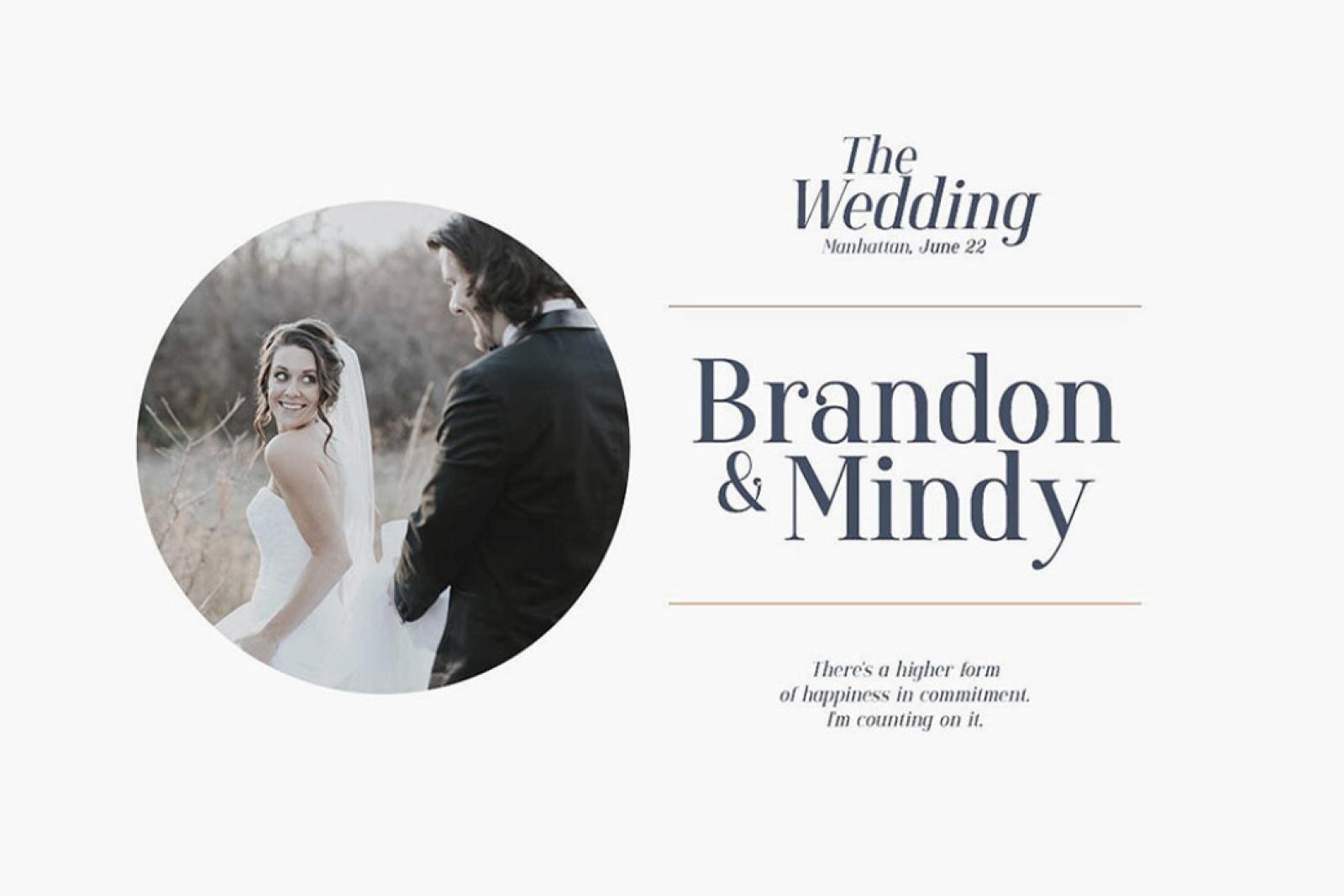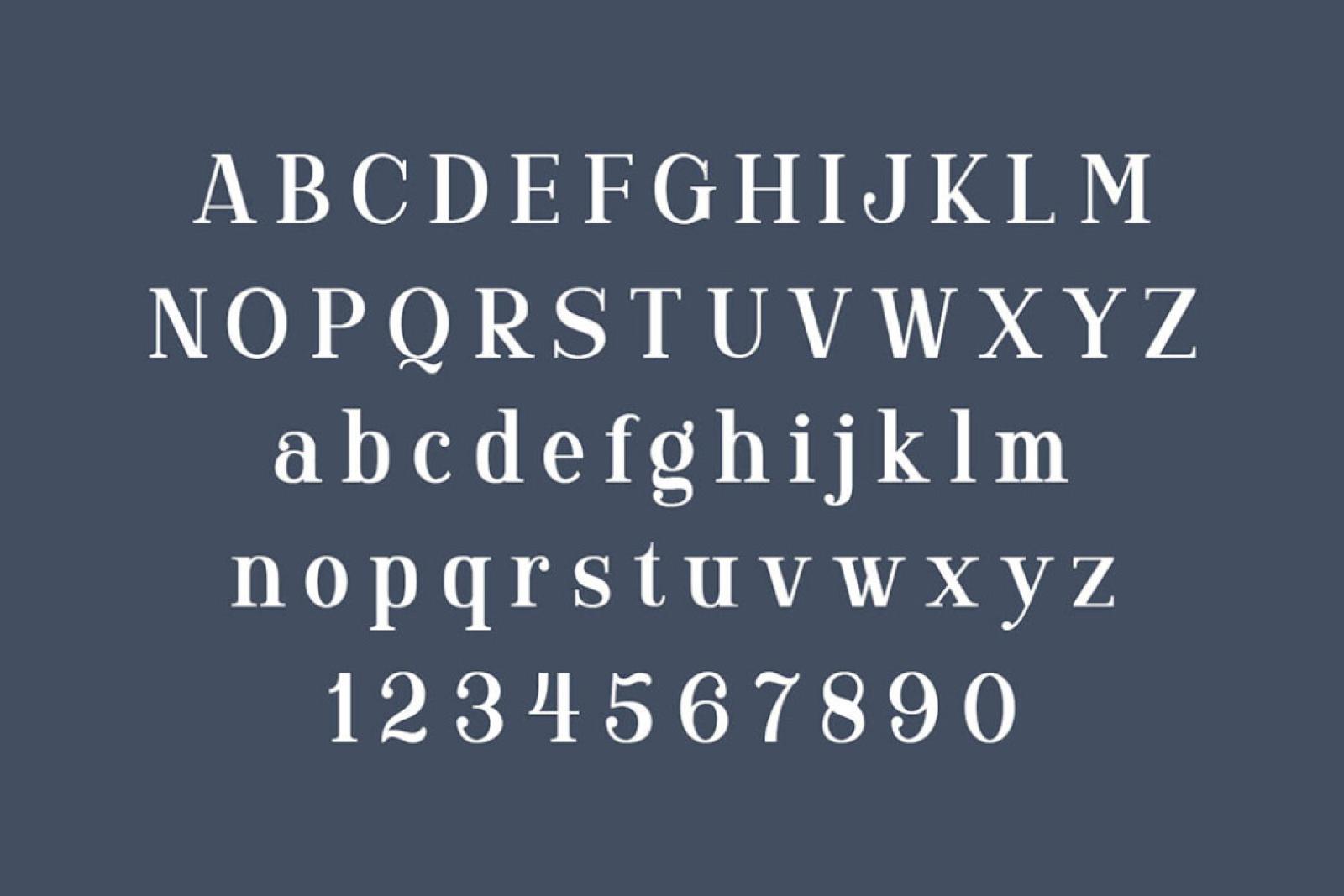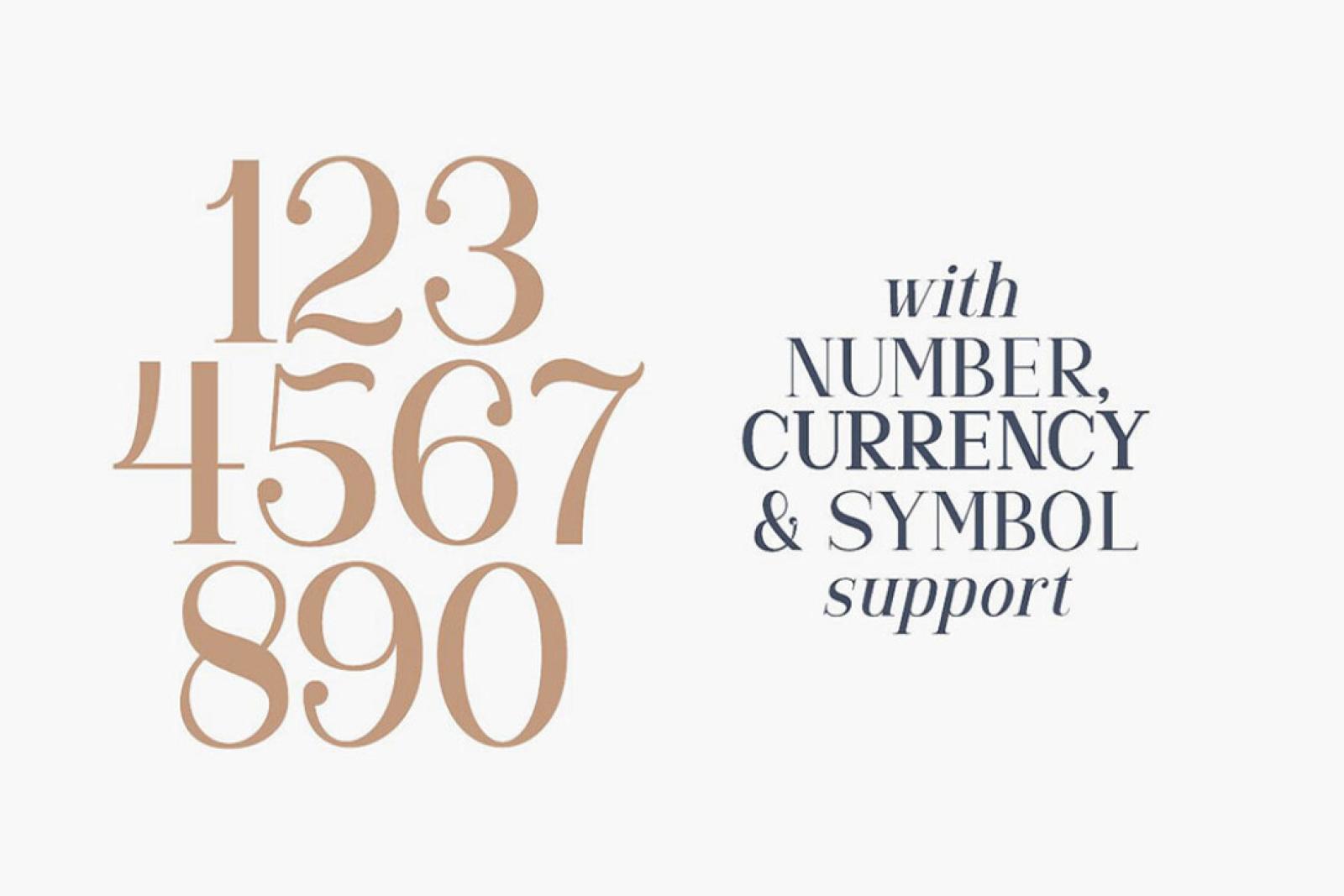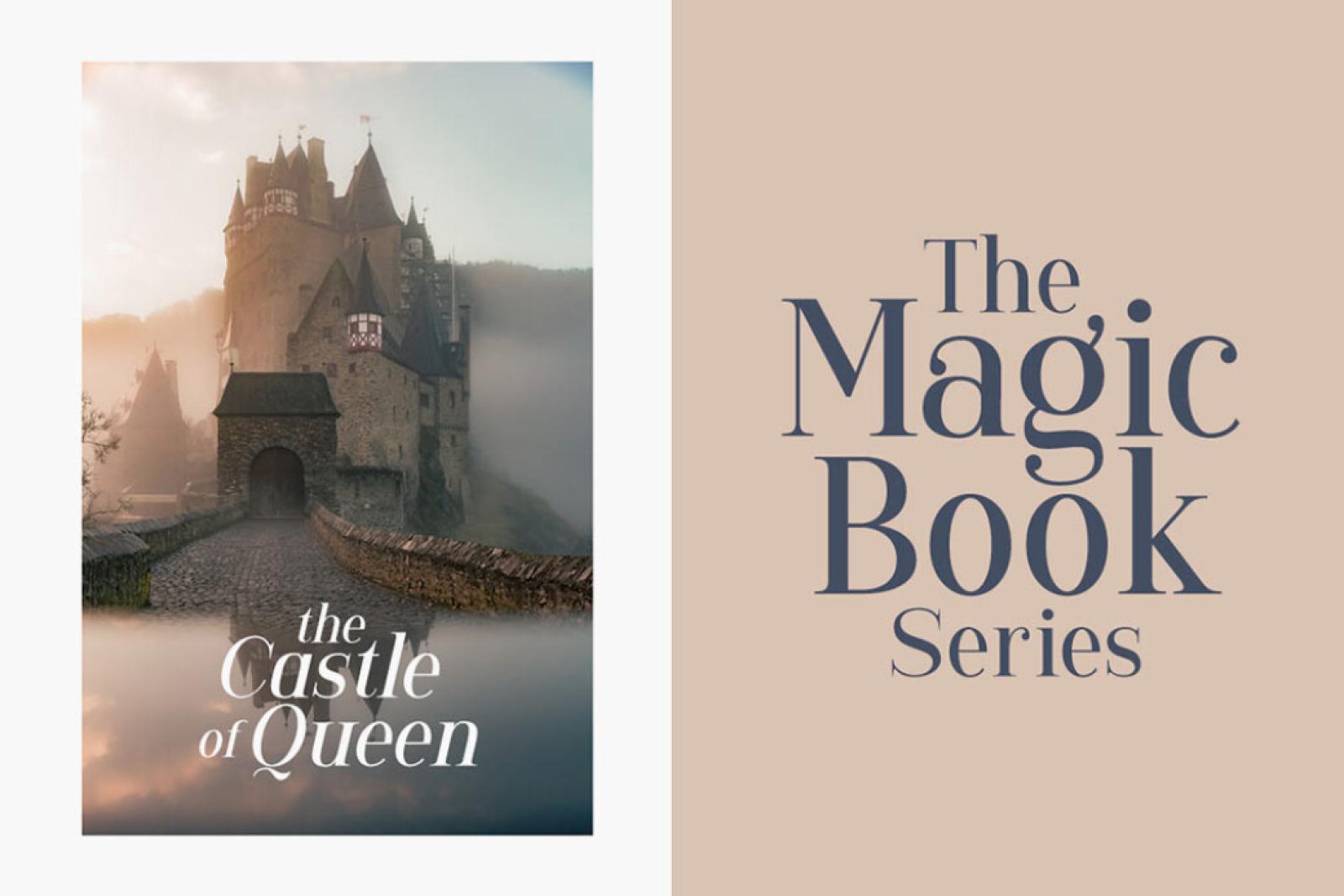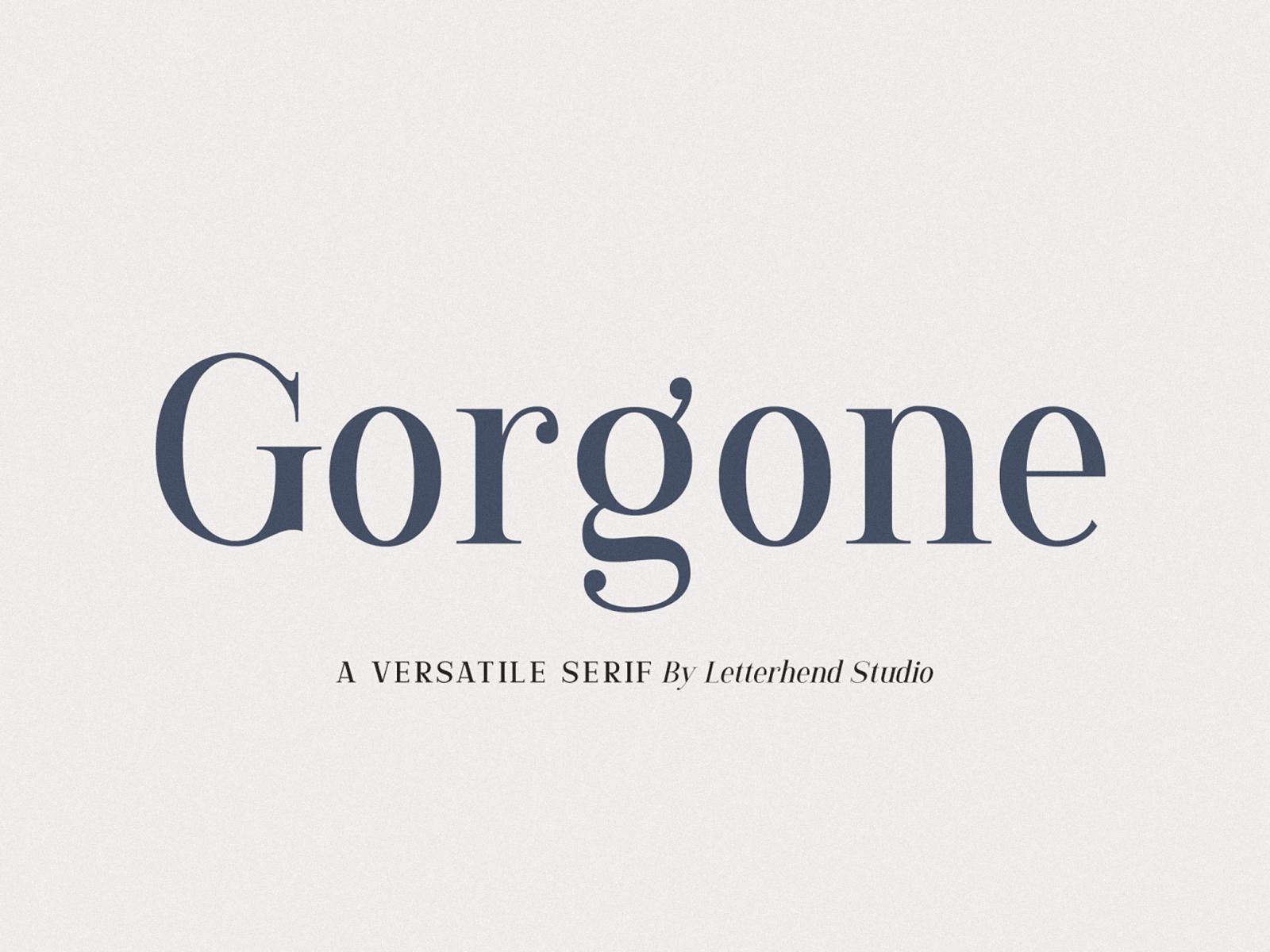
Gorgone Serif Typeface
Your designs must thrive and shine with their incomparable beauty! This is what impeccable Gorgone serif font was created for, now its waiting to become a diamond of your fonts collection.
This typeface breathes with elegant vibes and has its own strong character, suitable for any sort of design. Coming in upper and lowercase with punctuations, symbols & numerals it can serve a great addition to your invitations, logotypes, headlines or cards and even to apparel & packaging. Multilanguage support is an aid for expressing ideas through your creations globally. Looks aristocratic and luxurious, but not pompous it strikes a right balance.